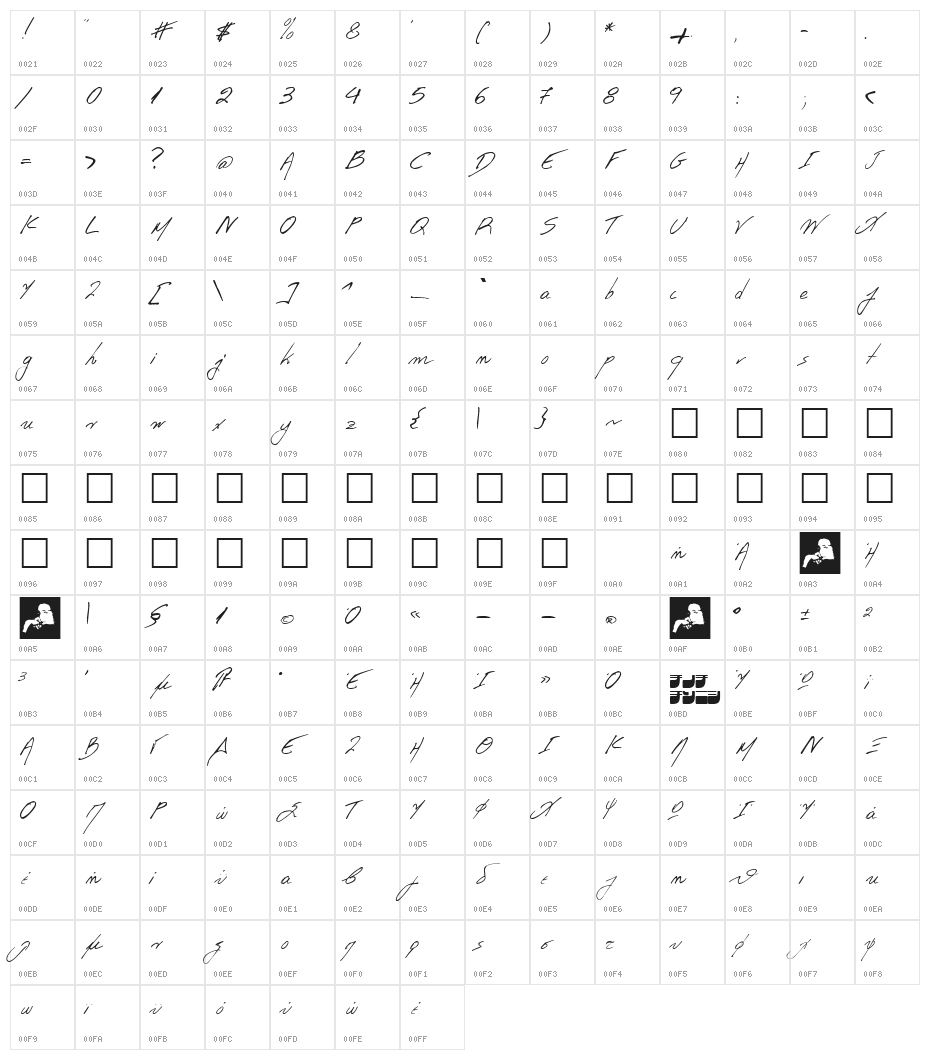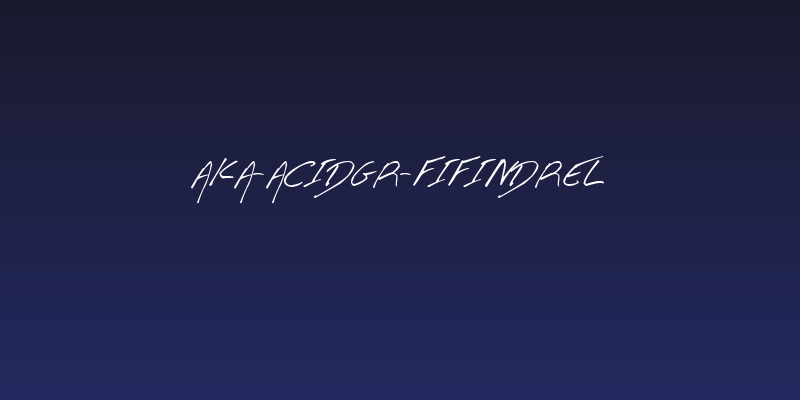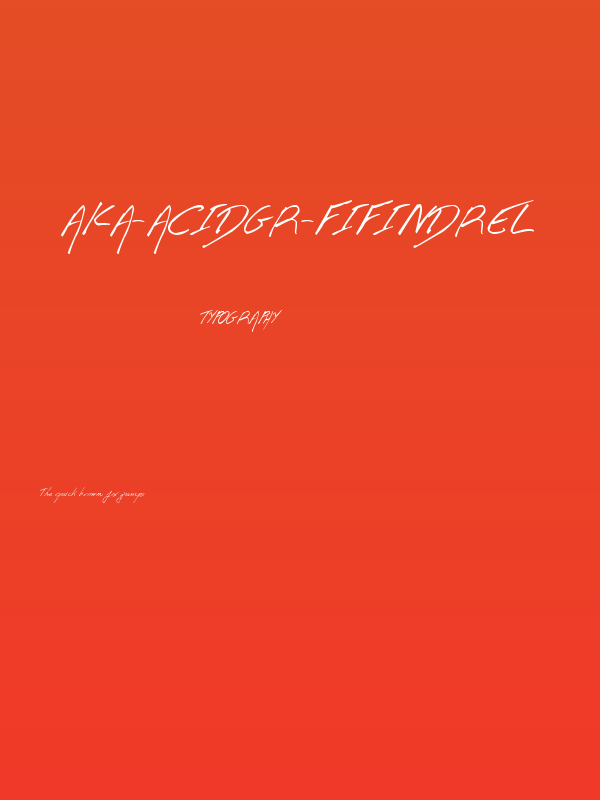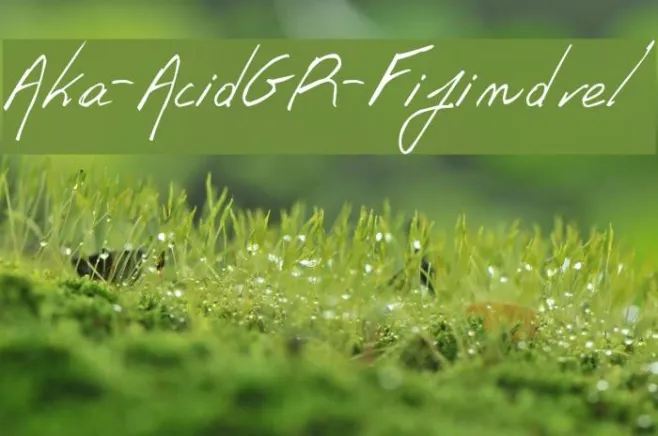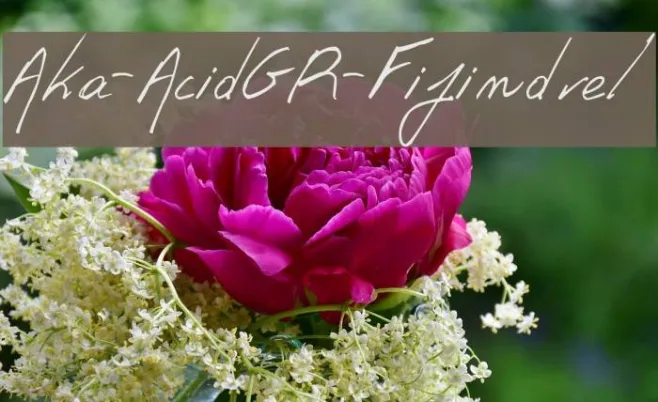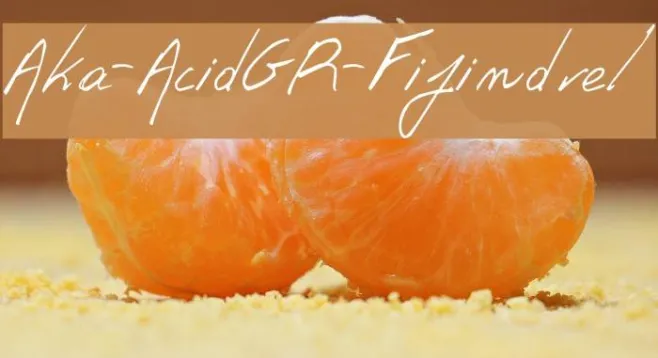
Aka-AcidGR-Fifindrel Font
Aka-AcidGR-Fifindrel Description
This font features a dynamic and fluid script style, characterized by its elegant and flowing letterforms. The strokes are smooth and connected, giving it a handwritten appearance. The uppercase letters are bold and slightly slanted, while the lowercase letters maintain a consistent flow with a more delicate touch. Numbers and special characters are crafted with the same fluidity, ensuring a cohesive look across all characters. The overall design exudes a sense of sophistication and personal touch, making it suitable for projects that require a human element.
| Overall Style | Elegant, Handwritten |
| Proposed Projects | Ideal for wedding invitations, personal branding, greeting cards, and artistic projects that require a personal touch. |